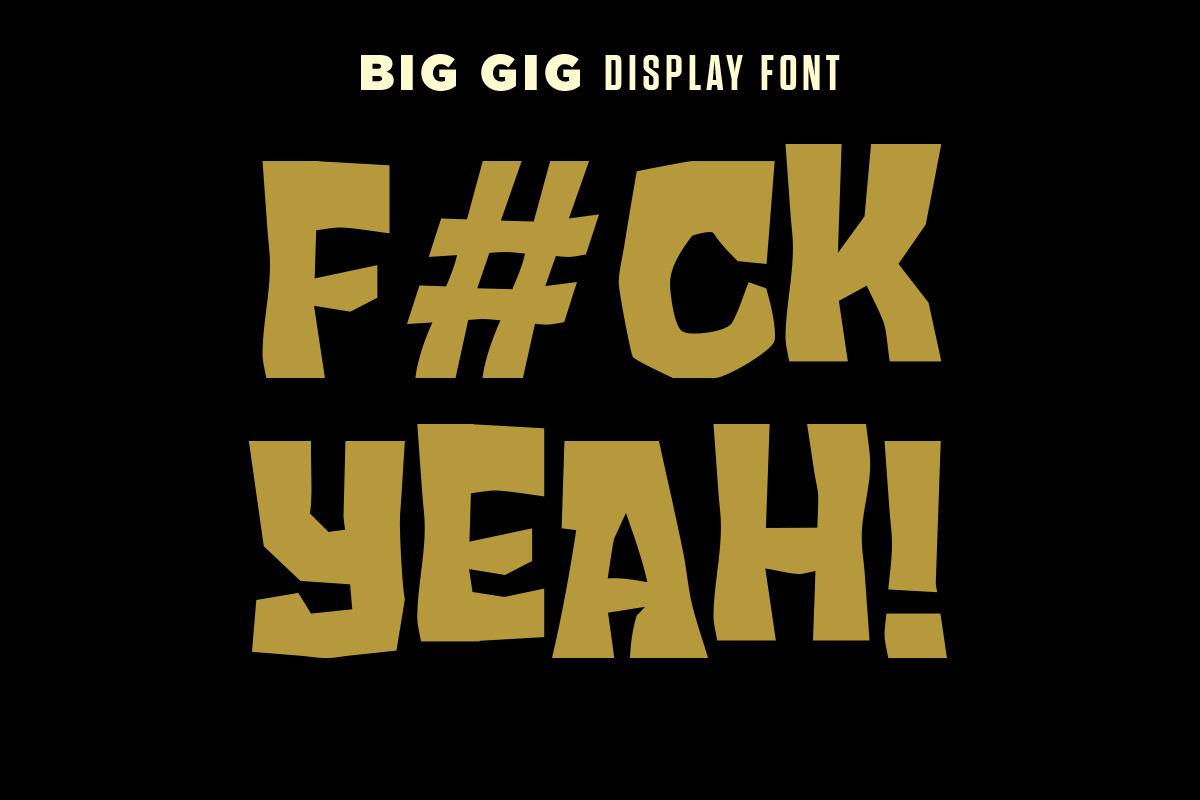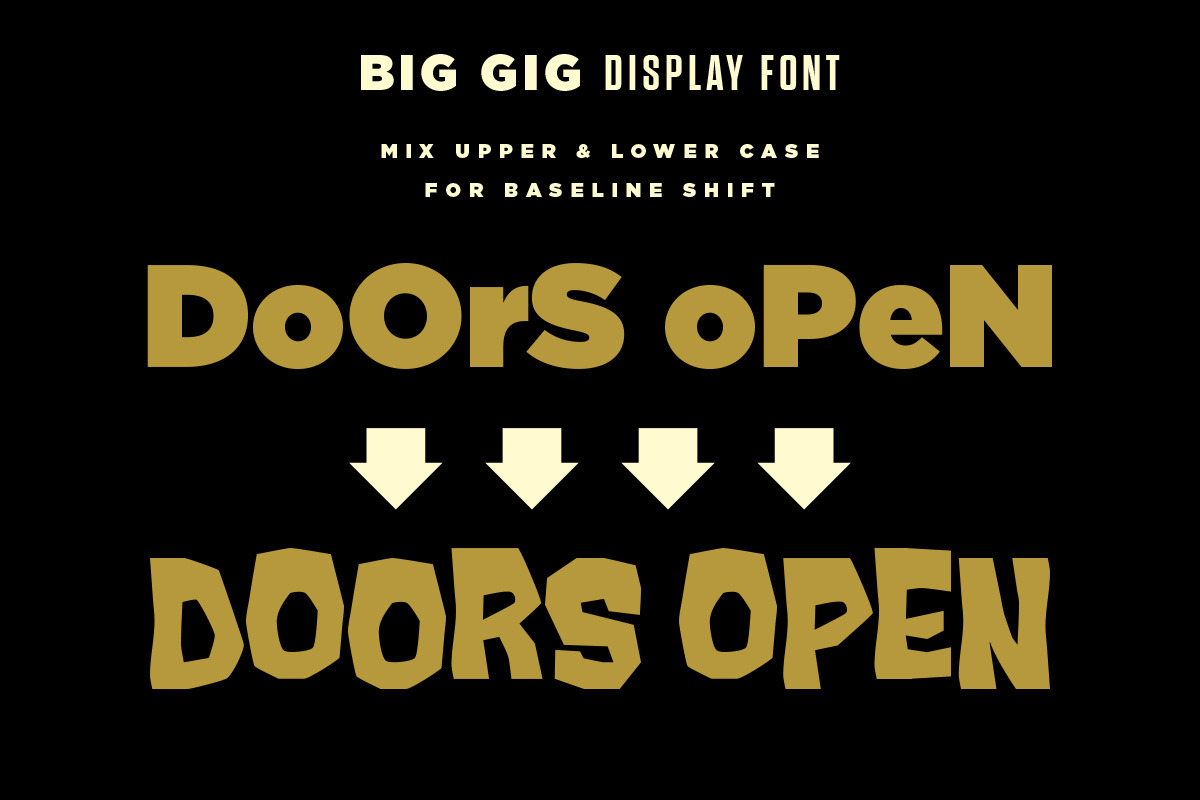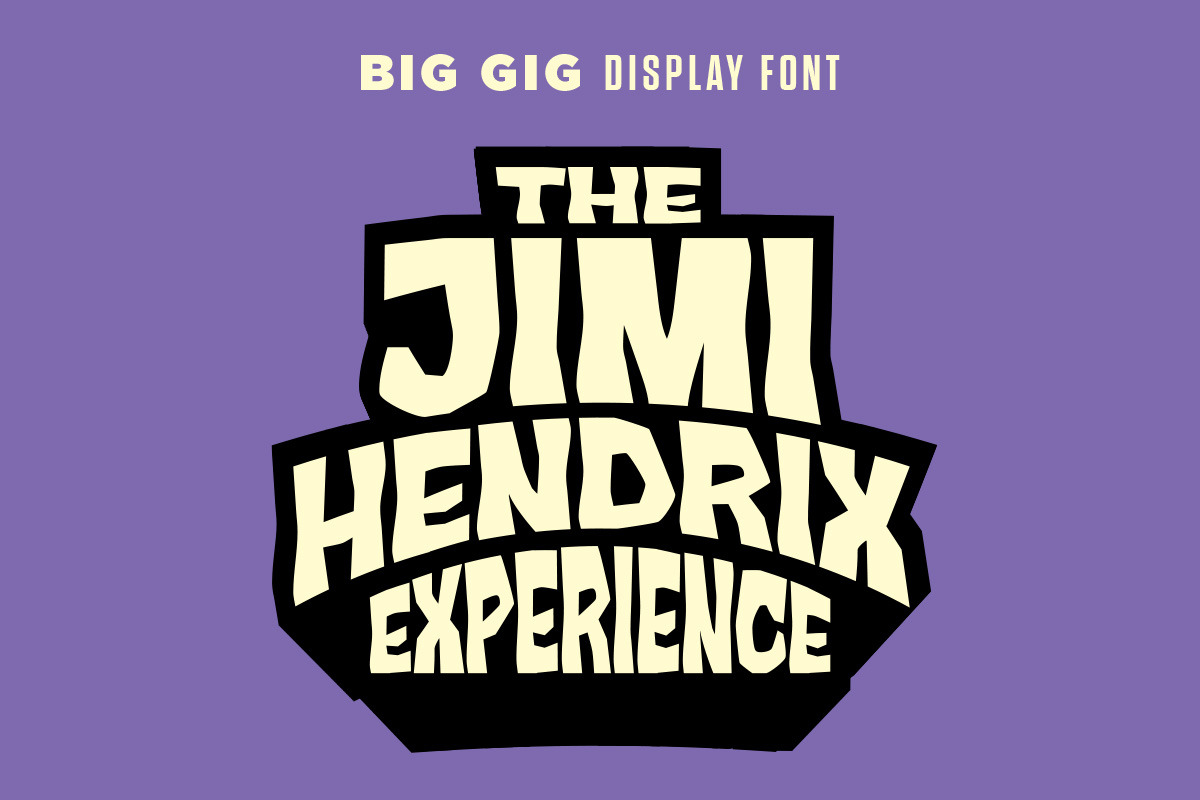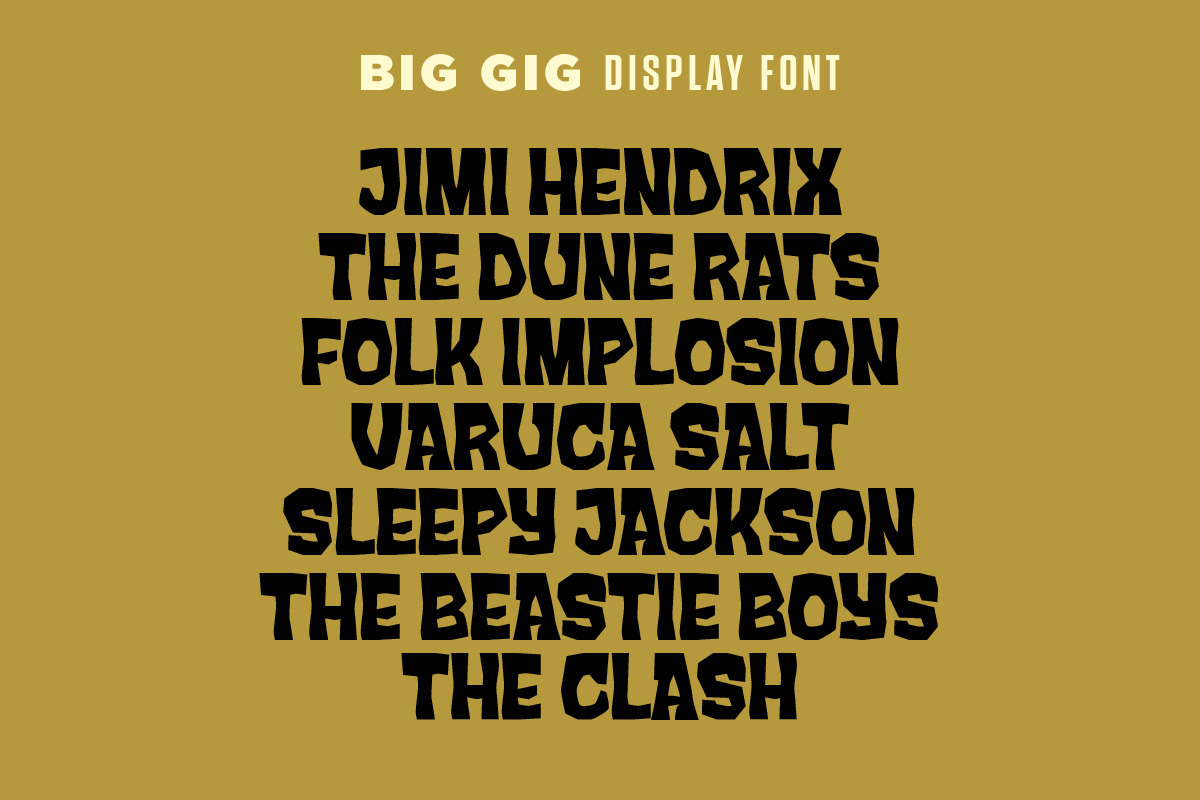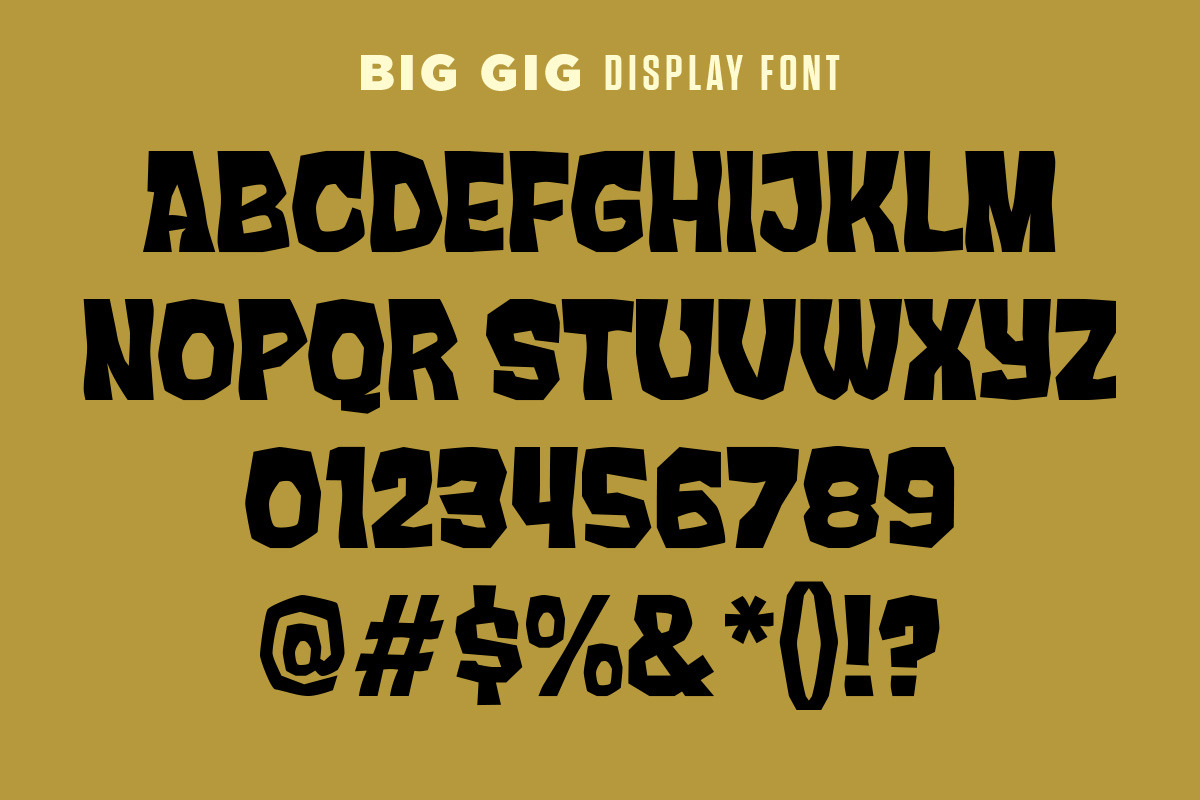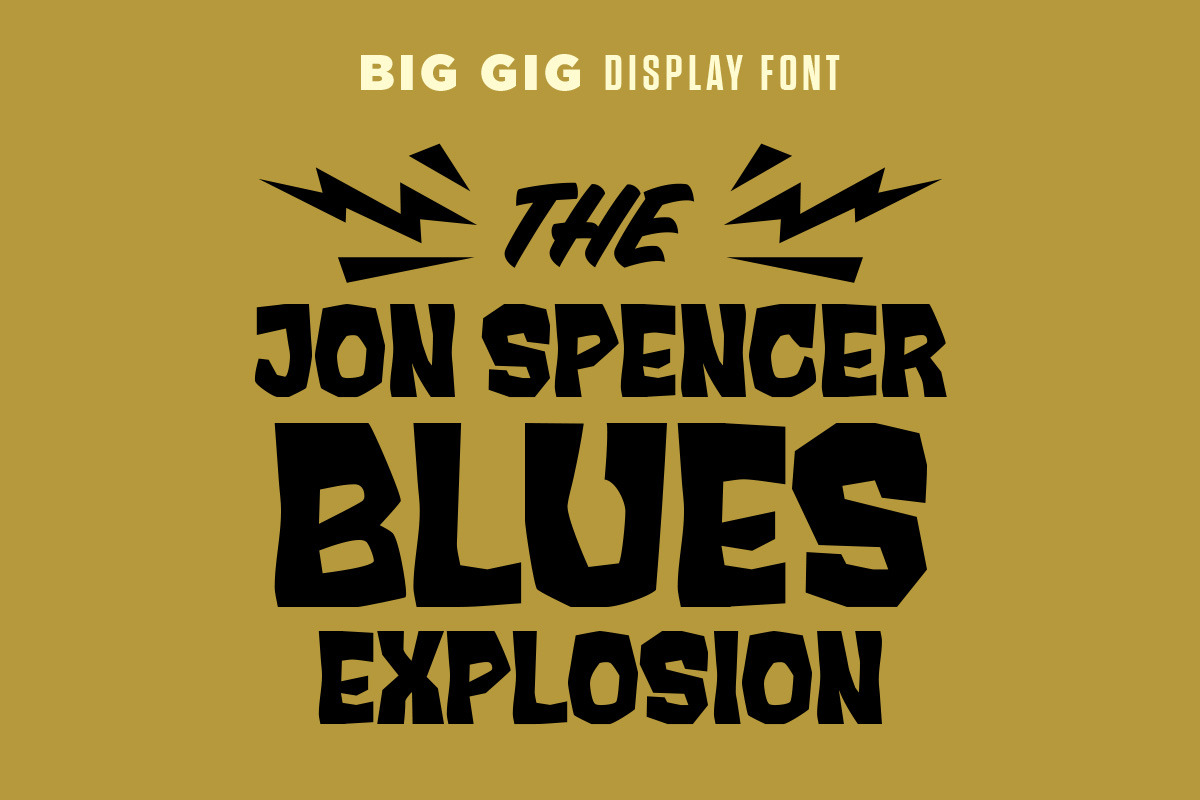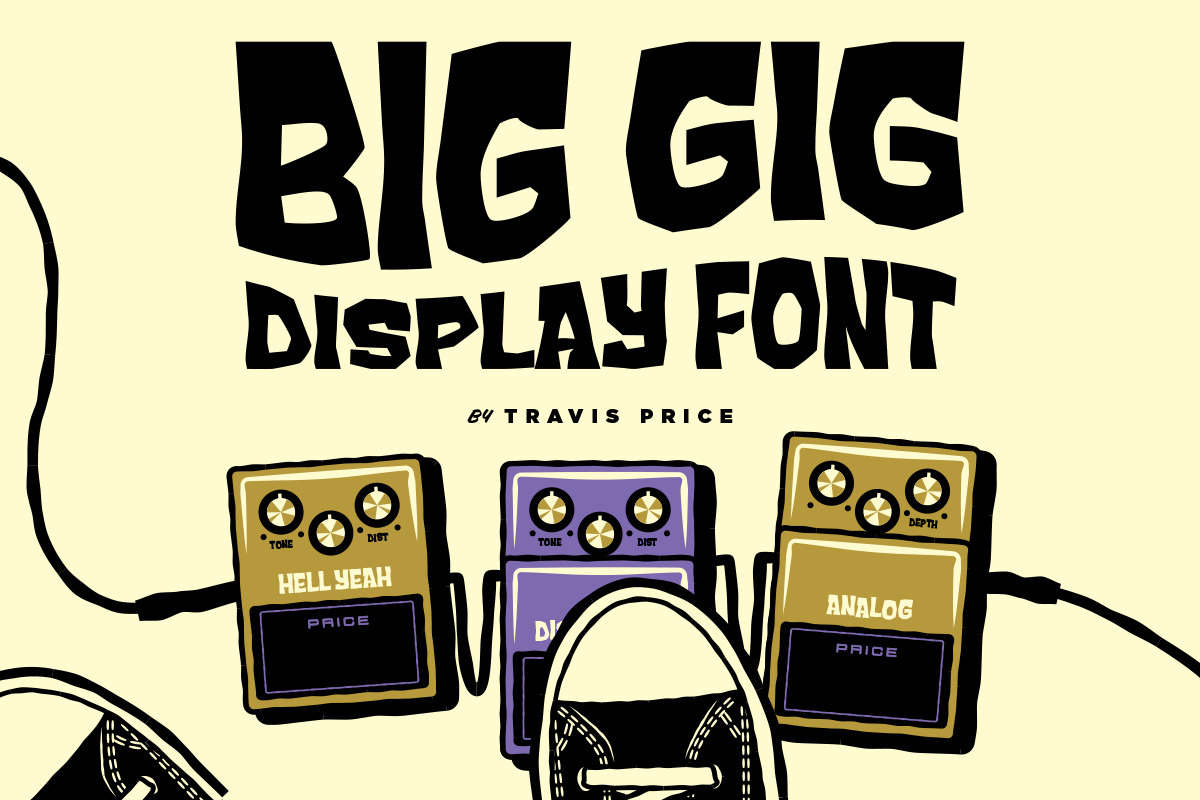
Big Gig Font
Introducing “BIG GIG”…A rough wood cut style font with bold and robust letterforms perfect for gig posters to get the word out there!
BIG GIG’s versatility allows it to adapt to various design needs while maintaining its distinctive character. Whether it's used for headline text, band names, or tour dates, the font effortlessly commands attention and injects a rock aesthetic into any composition. Its heavy weight ensures legibility even from a distance, making it a perfect choice for large-scale posters that need to grab attention in crowded concert venues or cityscapes.
“The reason for creating BIG GIG is I wanted a rougher looser font for gig poster work that could be easily stretched and manipulated to fit a space within a composition but also have synergy with my illustration.” Travis Price